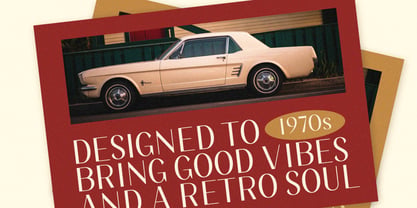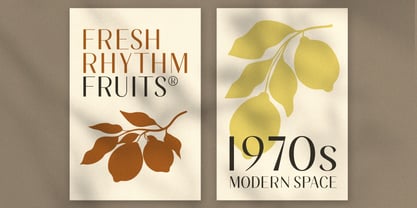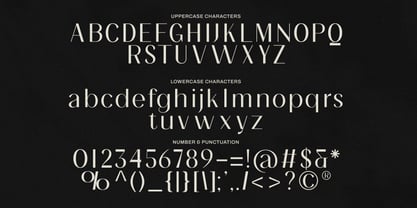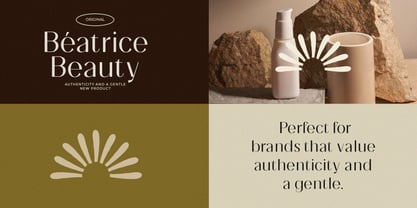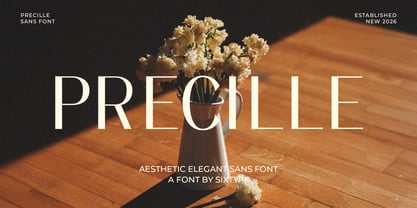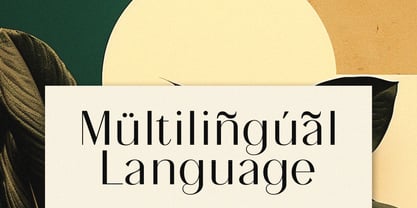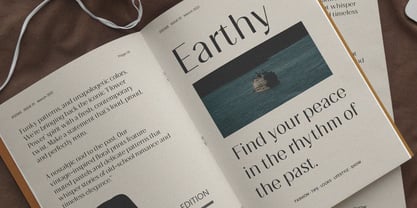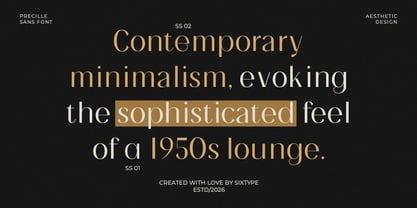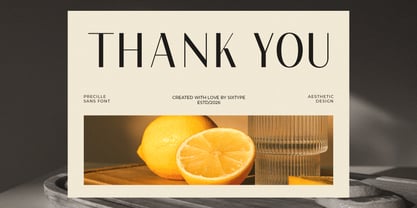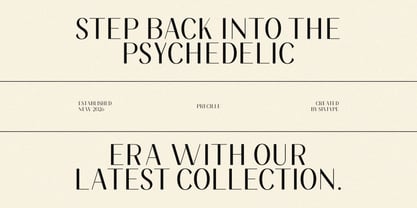
Precille
by Sixtype Foundry
The Precille Font Family and published by Sixtype Foundry. Precille contains 1 styles. More about this family
Precille is a modern minimalist sans serif typeface that radiates softness, elegance, and contemporary clarity. Characterized by its clean lines, balanced proportions, and subtle humanist touches, it brings a warm and approachable feel to modern design. The simplicity of its structure is enhanced by refined spacing and gentle curves, making it highly versatile for both display and editorial contexts. Ideal for lifestyle branding, beauty packaging, magazines, and sophisticated digital layouts, Precille offers a calm yet confident visual voice that feels timeless and effortlessly stylish. Its various weights and OpenType features further enhance its adaptability, making it a perfect choice for a wide range of design applications.